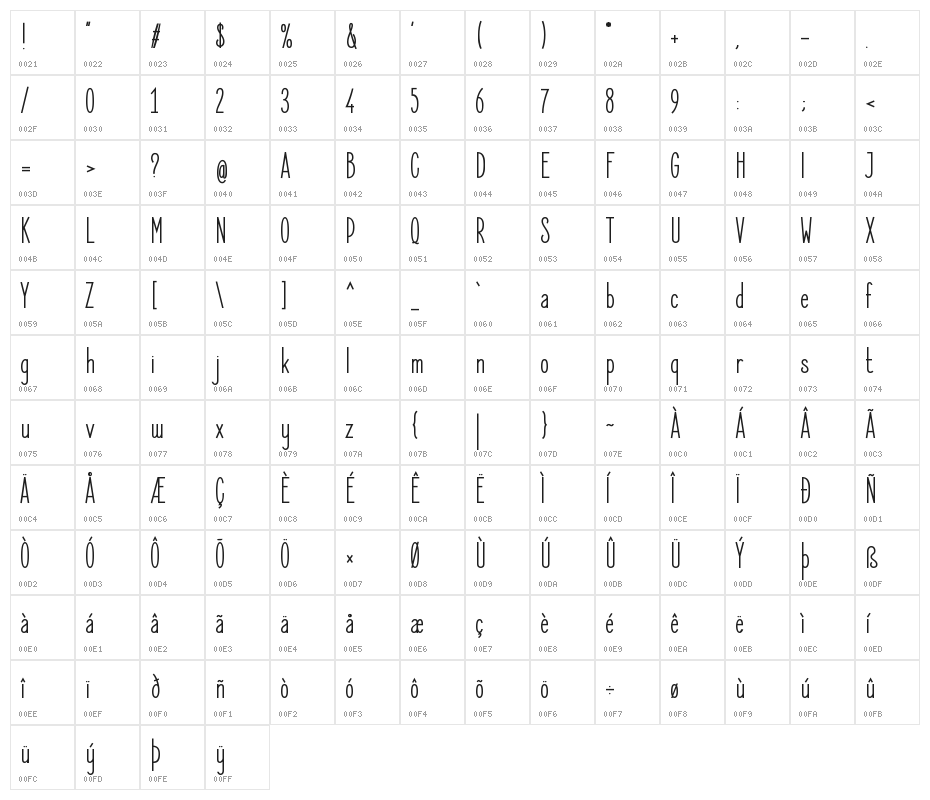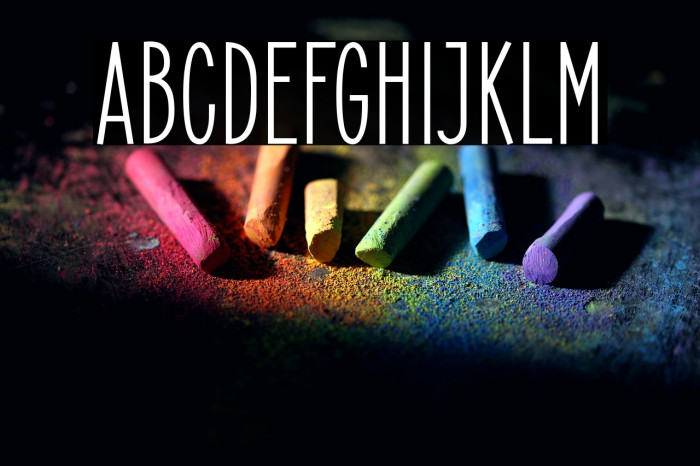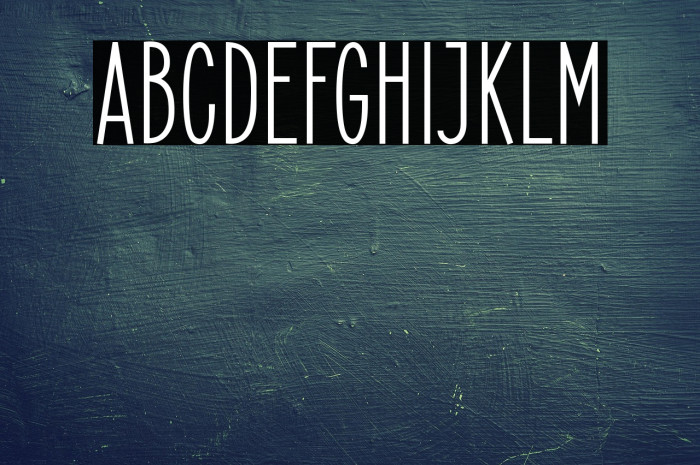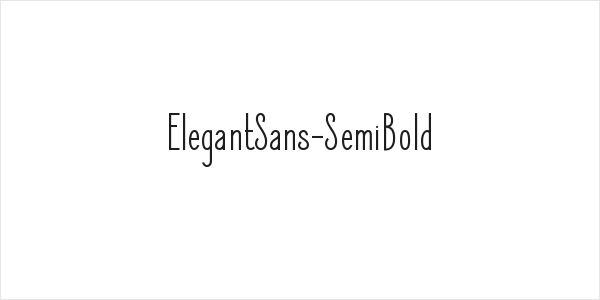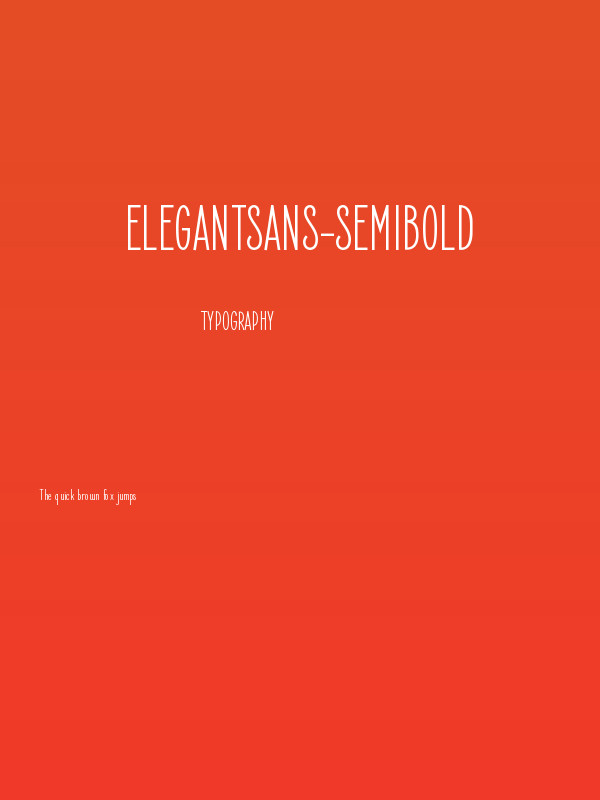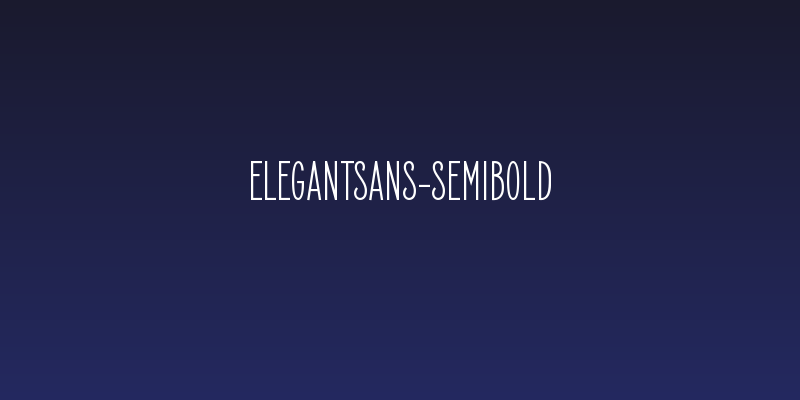
ElegantSans-SemiBold Font
ElegantSans-SemiBold Description
This font features a clean and modern sans-serif design with a semi-bold weight. The characters are tall and slightly condensed, giving a sleek and sophisticated appearance. The uppercase letters are uniform in height, while the lowercase letters maintain a consistent baseline, enhancing readability. The numerals are proportionate and align well with the overall style, making them suitable for various applications. The special characters are distinct and well-formed, ensuring clarity in usage. This font exudes a contemporary feel, ideal for projects that require a touch of elegance and modernity.